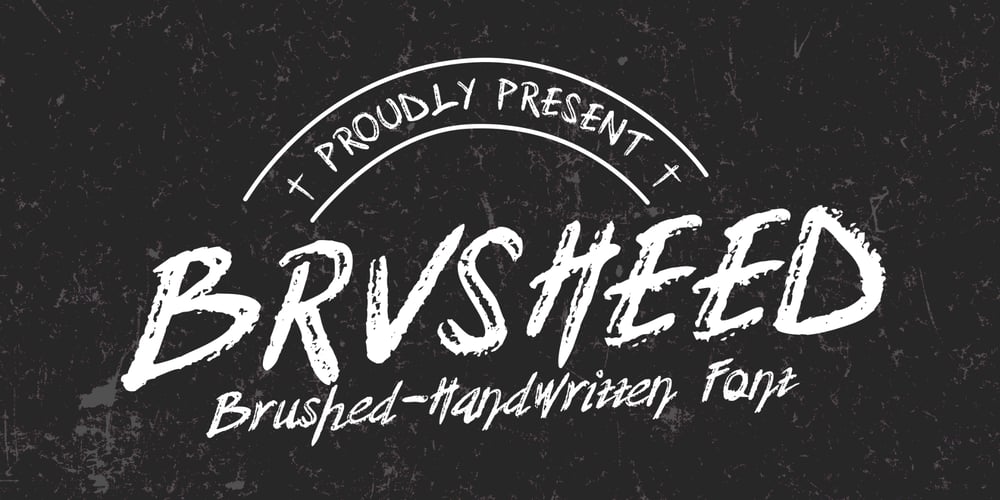
Brvsheed Font Family was designed by Mohamad Farhan Ramadhan and published by Mofr24. Brvsheed contains 2 styles and family package options. Introducing Brvsheed, a modern handwritten font that exudes uniqueness with its brushed texture. With both Regular and Italic styles, it’s a versatile choice for posters, marketing, T-shirt design, and more. Its multilingual support enhances its usability, while its distinctive look adds flair to titles, YouTube thumbnails, and gaming graphics.